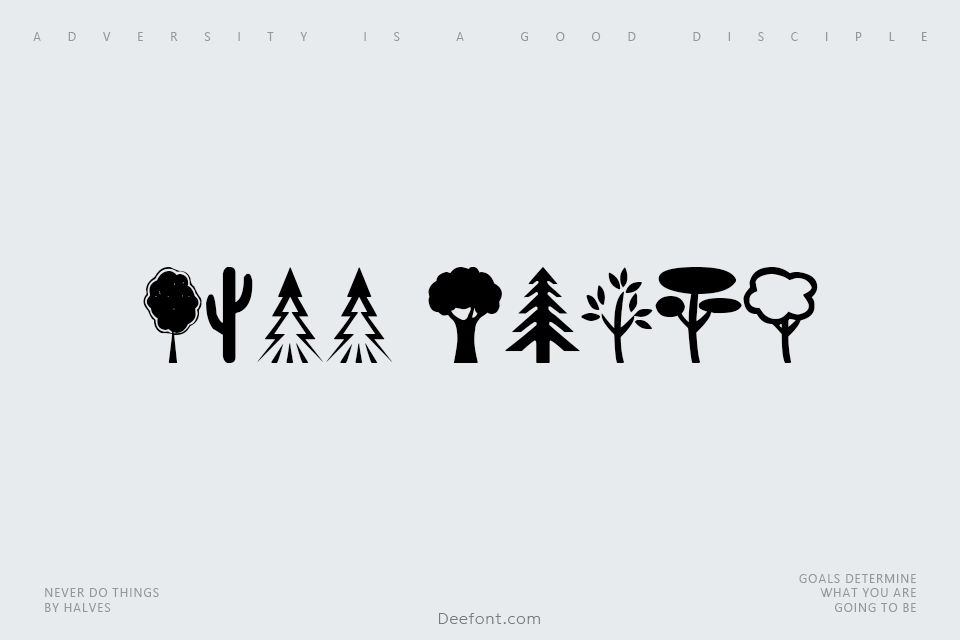
Tree Icons Font
Tree Icons is a versatile dingbats font featuring 236 nature-inspired characters and tree-related symbols. Designed as a compiled and vectorized collection, this display font offers an extensive library of botanical and environmental icons perfect for creative projects, infographics, and decorative designs. With its clean compilation of tree symbols and nature elements, Tree Icons provides designers with a valuable resource for adding organic visual elements to branding, packaging, and multimedia projects. The font supports multiple creative applications and delivers crisp, scalable vector-based imagery for both digital and print designs.